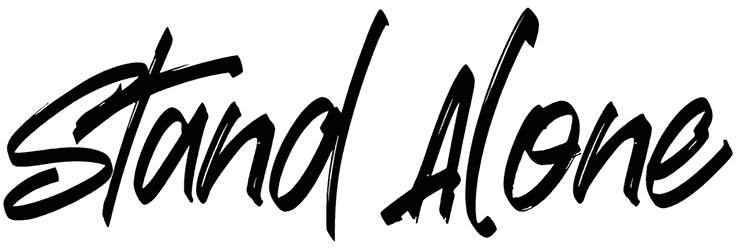
Stand Alone Font
Are you interested in urban and artistic designs? This cool brush font, which is known as Stand Alone, can make such a design. As an urban font with realistic lettering, Stand Alone font can be a perfect choice for many items like banners, t-shirts, postcards, and whatnot, even without some numerals.